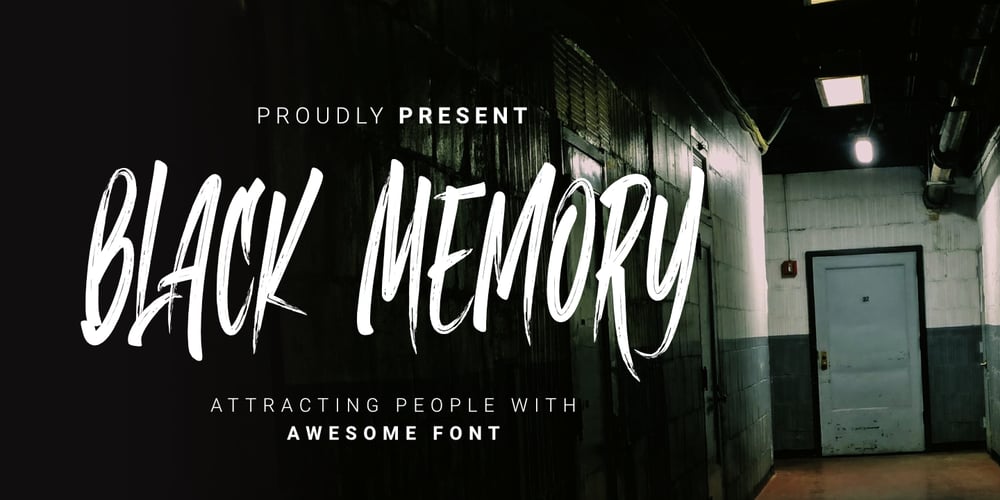
Black Memory
Black Memory font
Black Memory Font Family was designed by Toni Dzulham and published by Dumadi. Black Memory contains 1 styles and family package options. Black Memory is a Brush-style font created with the App. The natural stroke texture makes this font look more perfect to use.Black Memory consists of capital letters and lowercase letters with different shapes so that you have a choice that fits the design you make. This font is perfect for Movie Titles, horror movie titles, action, murder, spooky, ghost, and other movie titles.You can see the sample preview above for comparison,stay the center of attention and classy!